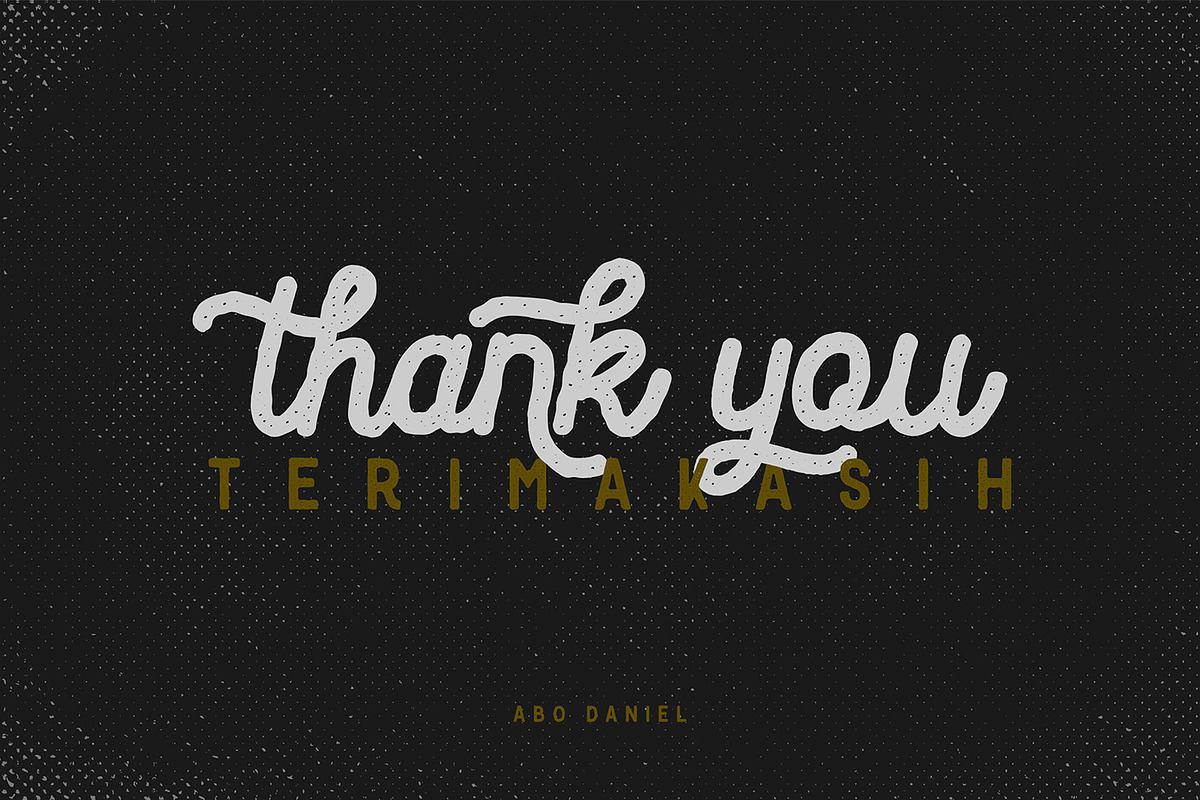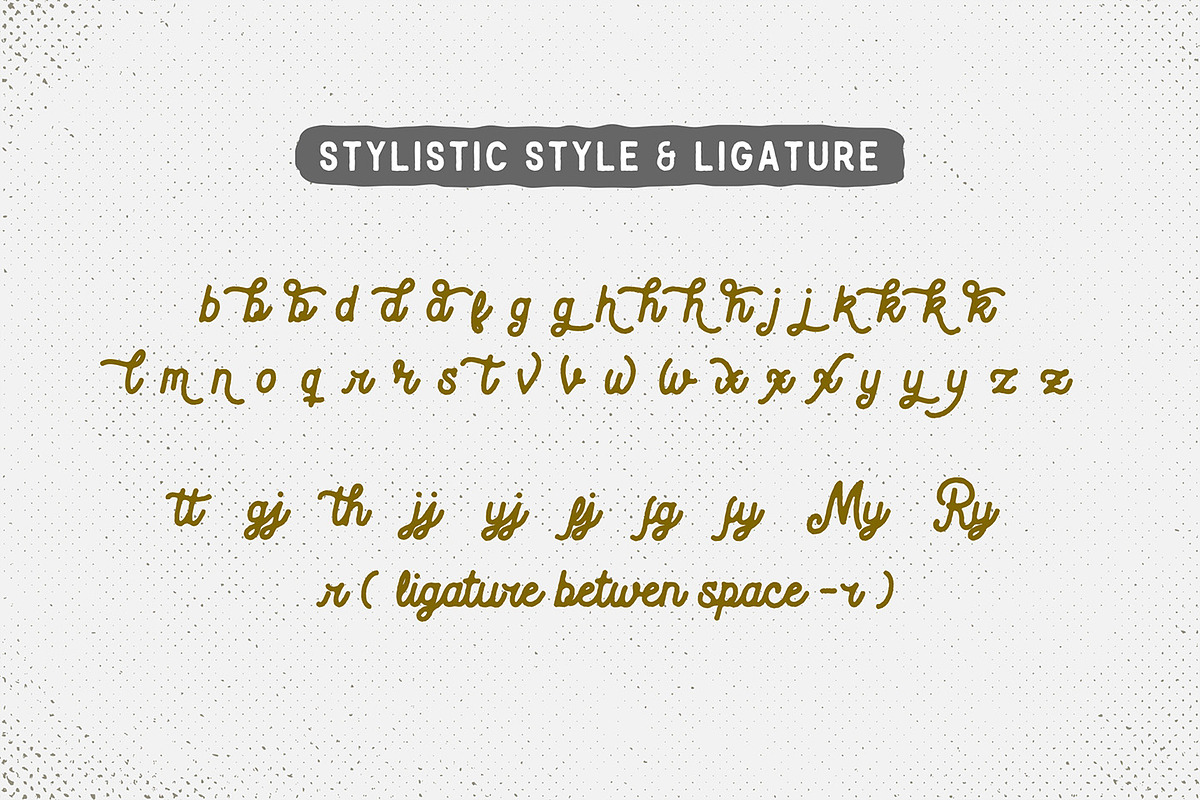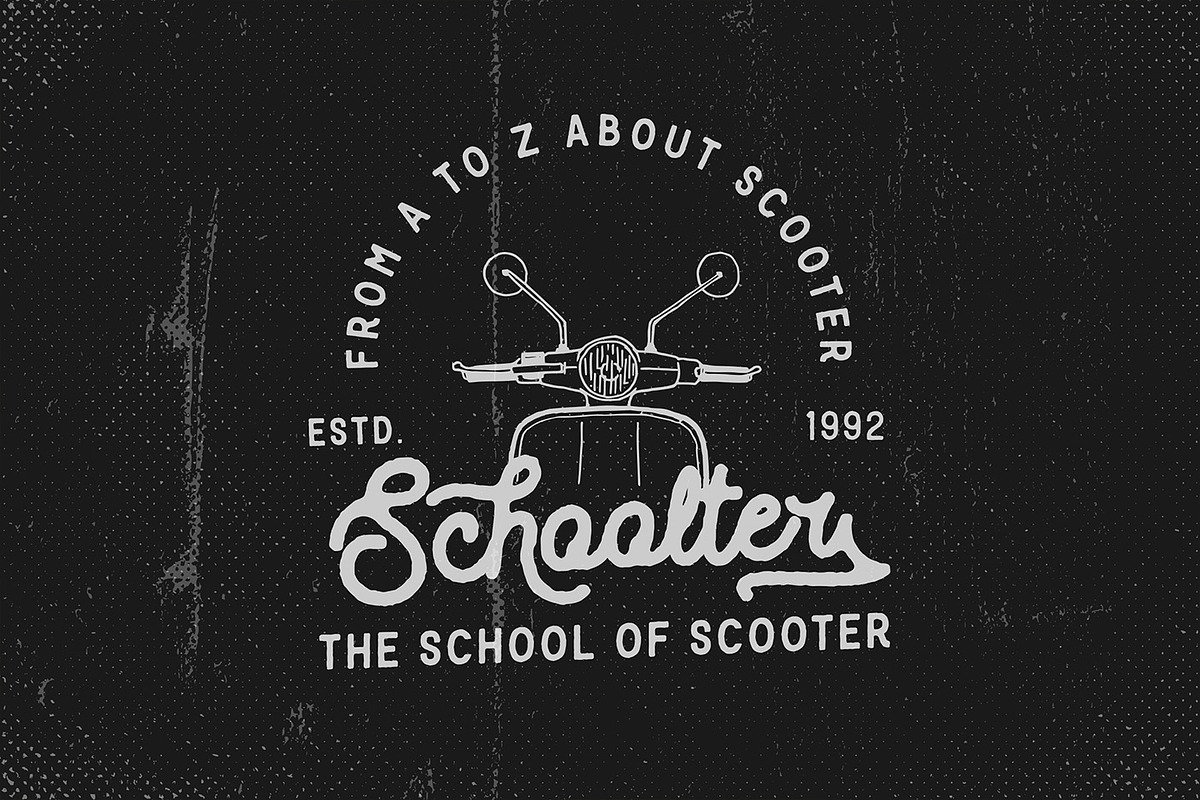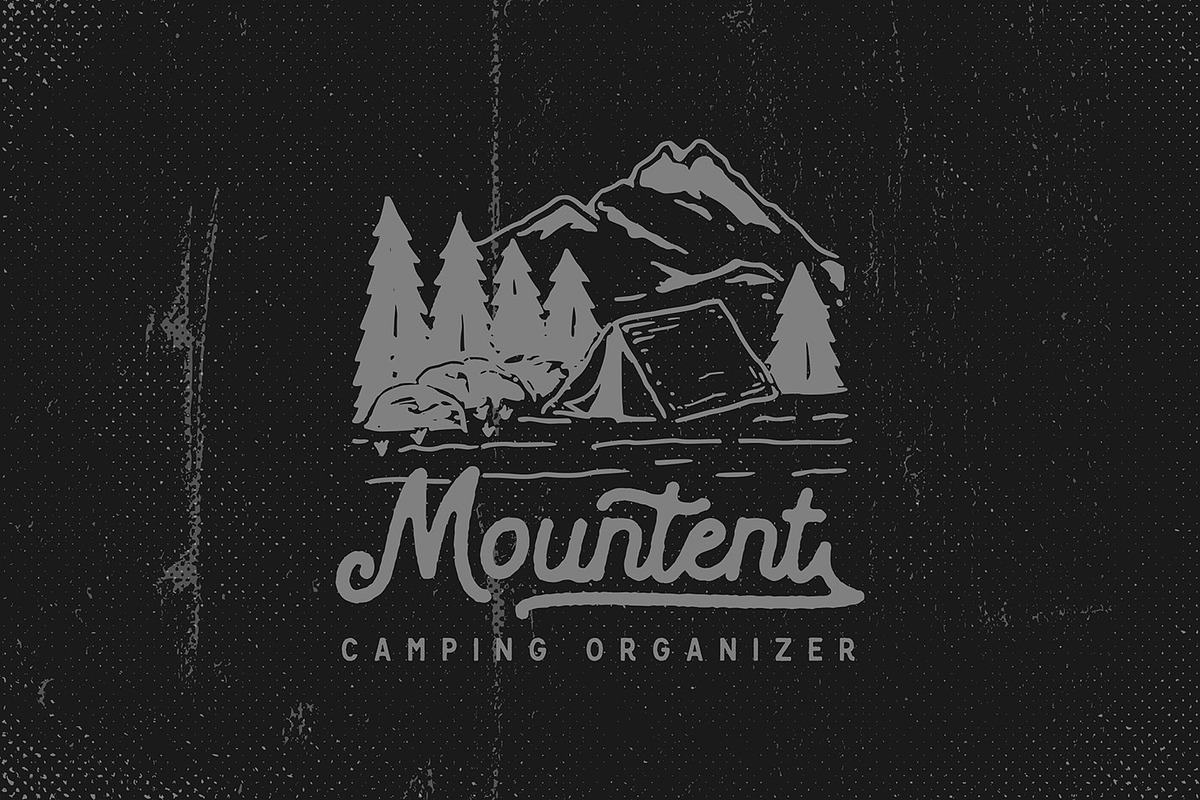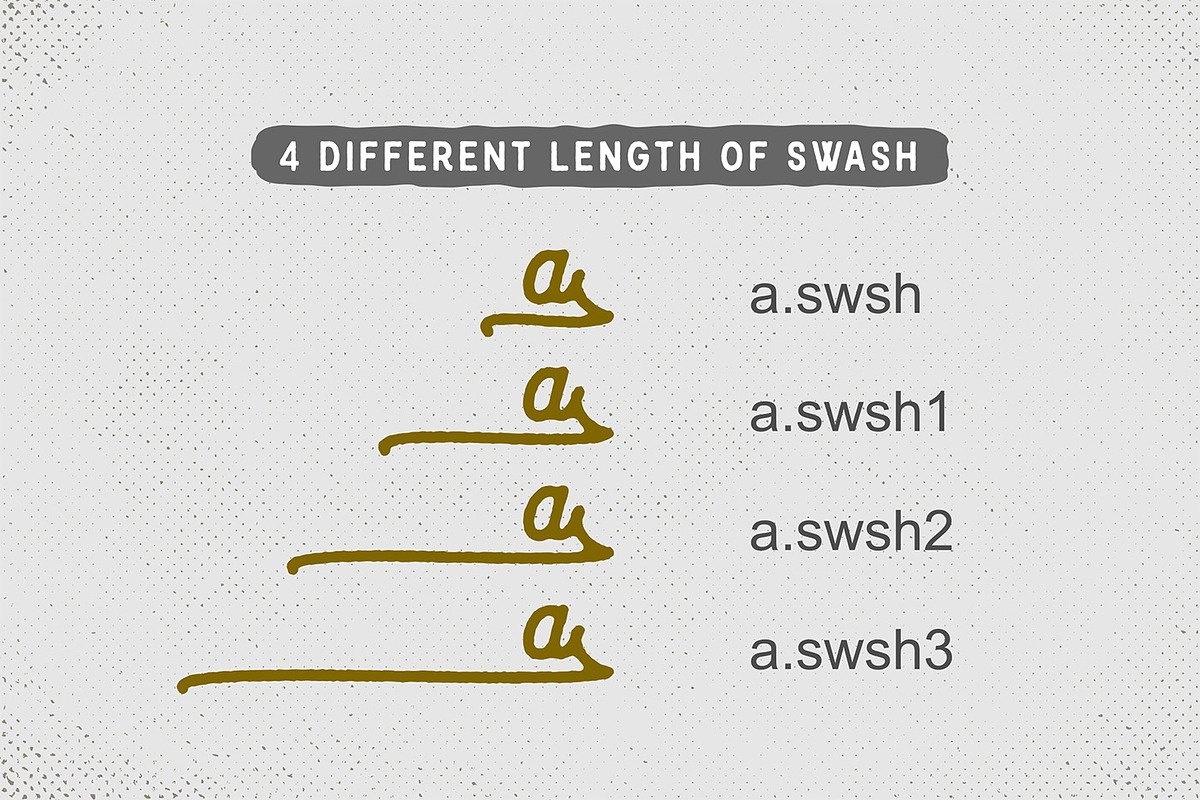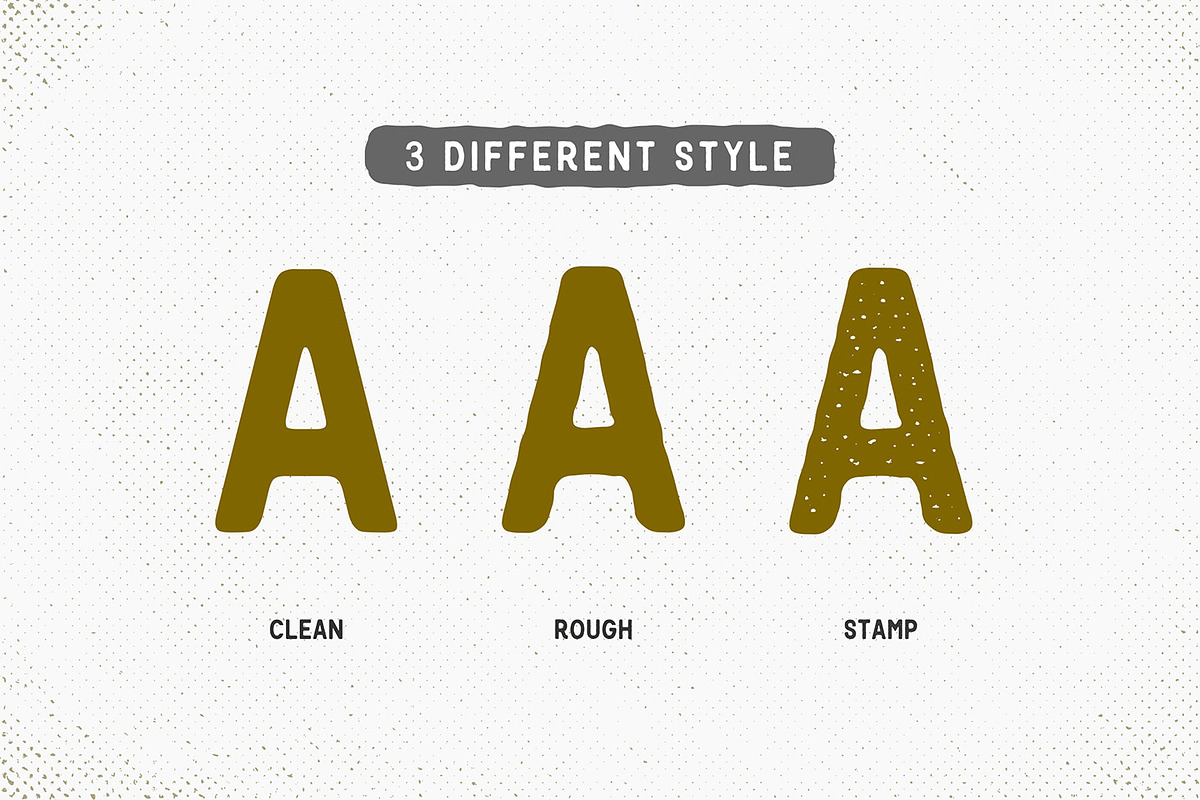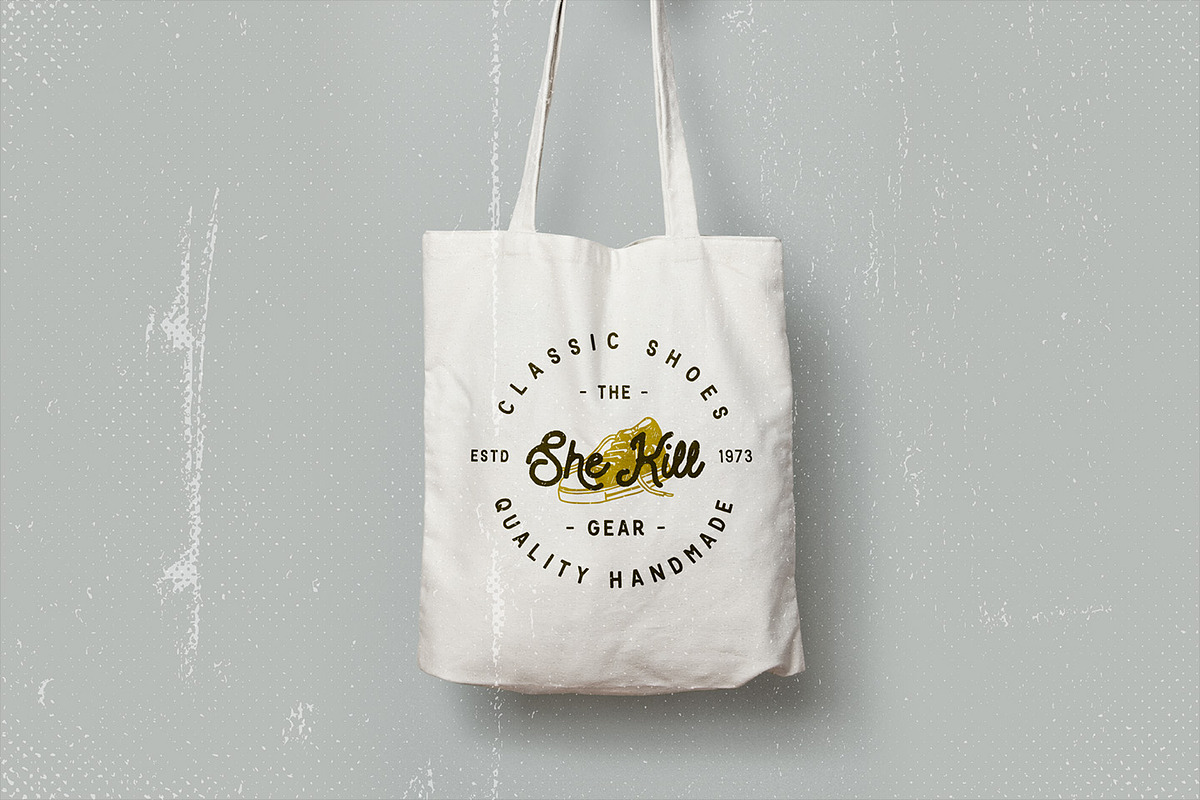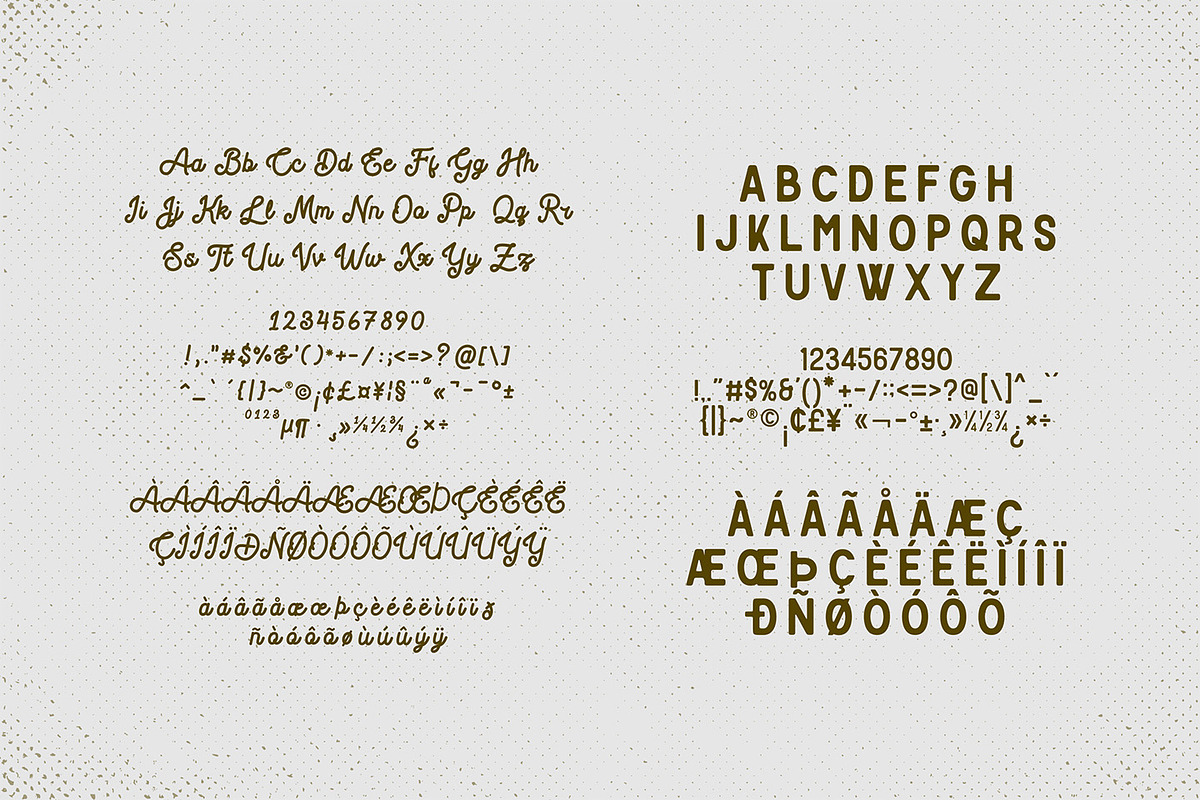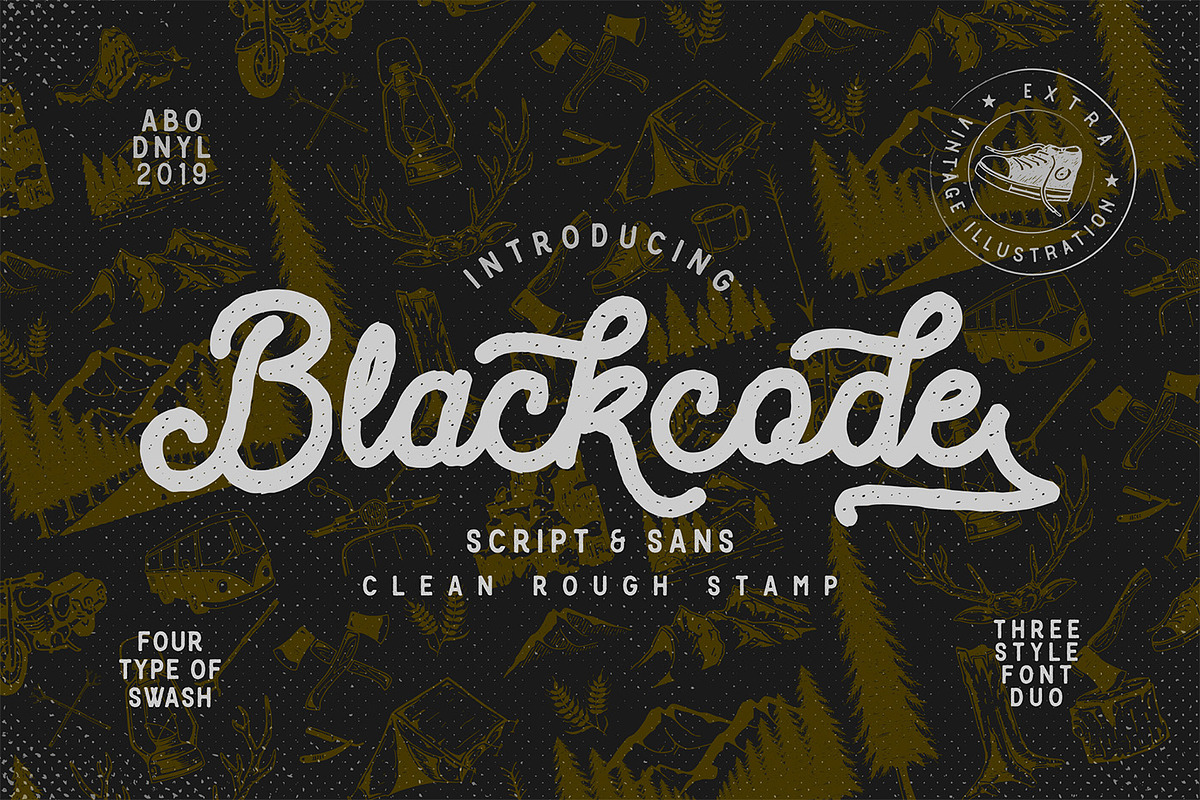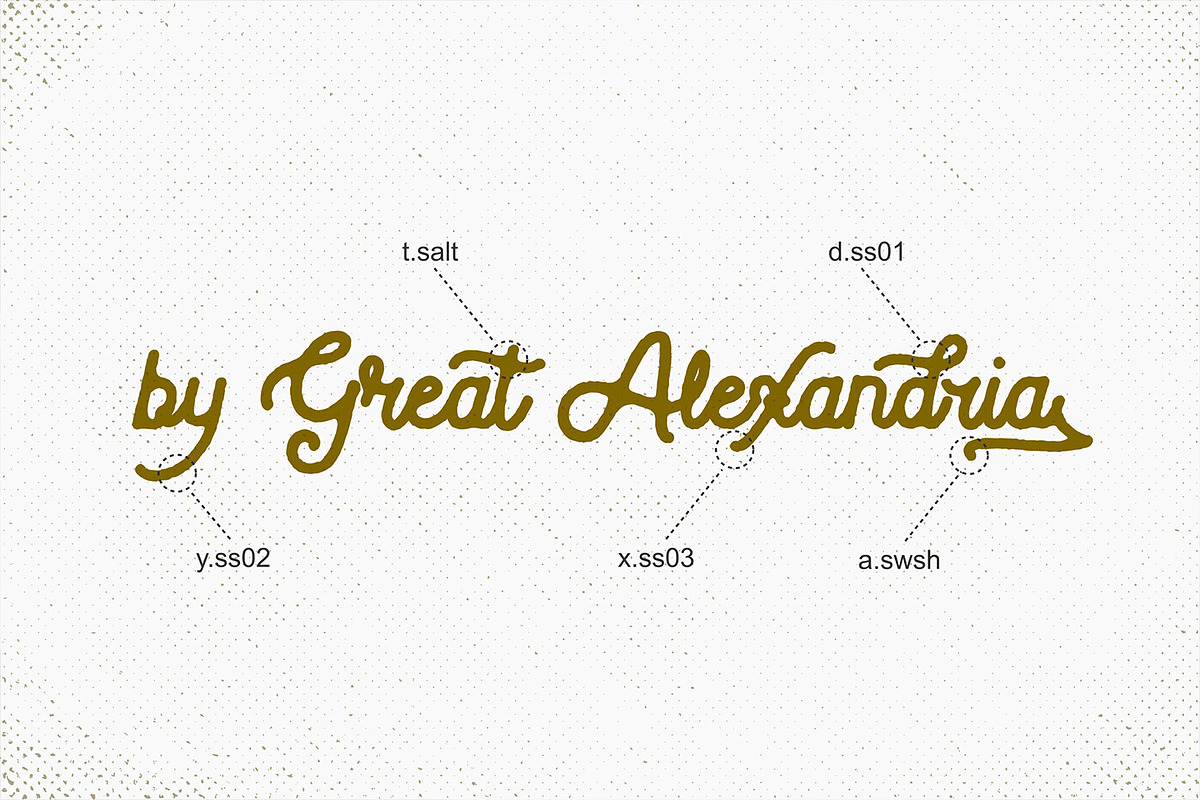
Blackcode
introducing
BLACKCODE - careful vintage font duo Script and Sans -
Both script and sans will match perfectly. The vintage feel is perfect for logotype, apparel, branding, packaging, advertising, and more. This typeface came in uppercase, lowercase, punctuations, symbols & numerals, stylistic alternate, ligatures, and ending swashes. Also, support multilingual and is already PUA encoded.
It Comes in 3 different styles: Clean, Rough, and Stamp
Ending Swashes make it completed. It comes in 4 different lengths.
It is effortless to access swash. You only need to add underscore 2x after lowercase for a short swash. And adding underscore 2x and 1 or 2 or 3 after lowercase for longer swash.